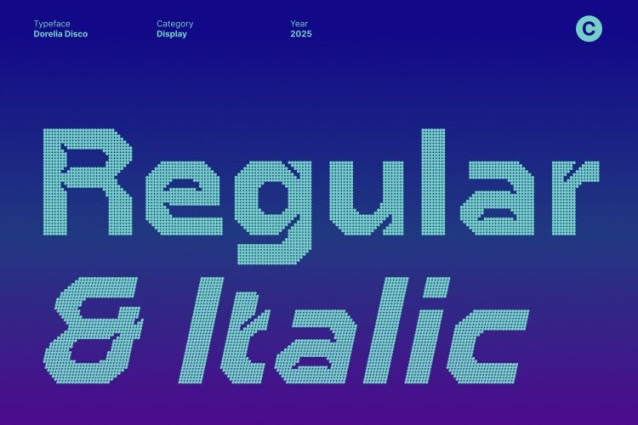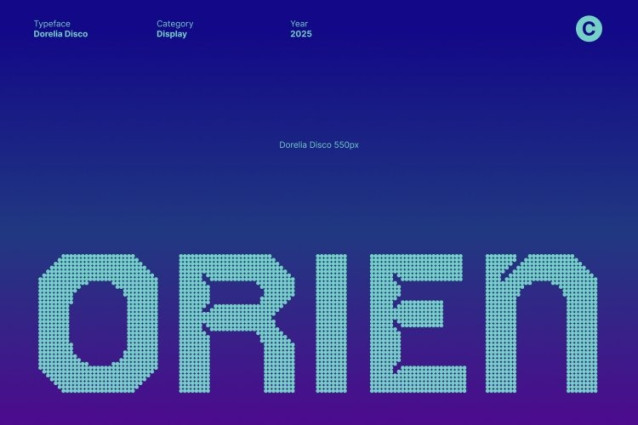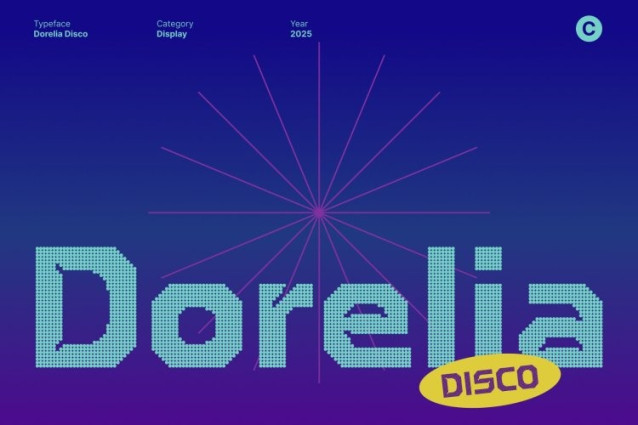
Dorelia Disco Font
Dorelia Disco Font is a bold sans serif display font featuring inktrap details for added character and visual interest. Its strong, clean lines combined with subtle inktrap styling create a modern and dynamic look that commands attention in any design.
Disco Effect for Sparkling Energy
A striking disco effect brings shimmer and vibration to every letter, adding a glamorous, lively touch. This energetic detail transforms the typeface into a visual spectacle, making your text feel dynamic, stylish, and full of personality.
Bold and Clean for Maximum Impact
The combination of bold weight and clean structure ensures this font delivers clarity and legibility while making a statement. Its carefully crafted forms allow it to shine in large-format uses like headlines, posters, or display branding, providing both functionality and flair.
Versatile for Contemporary Creative Projects
This font is ideal for designers seeking a typeface that merges boldness with expressive energy. Perfect for branding, editorial layouts, posters, and contemporary creative projects, it captures a fresh, eye-catching aesthetic that engages audiences and elevates visual storytelling.